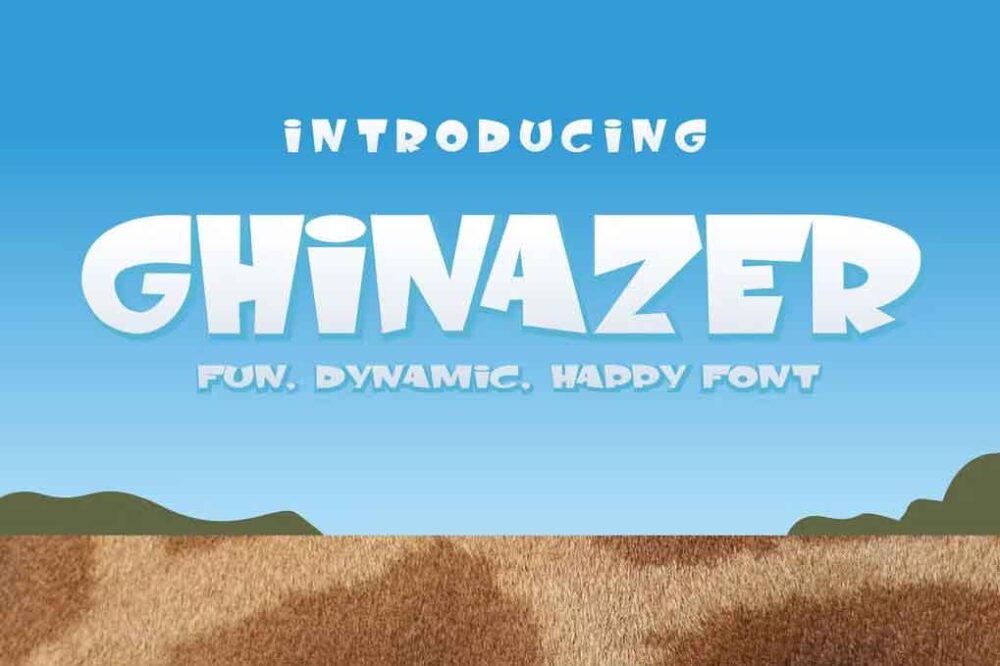
Ghinazer Font
Proudly present our new product **Ghinazer font **
**Ghinazer font ** is a modern and authentic font. Perfect for both professional and branding needs of a product. This font is suitable for any branding project like quotes, logo, blog header, poster, banding, letter, invitation, stationery, etc… Designed as a versatile and flexible that can be used on a range of projects and mediums.outstanding in a wide range of contexts.